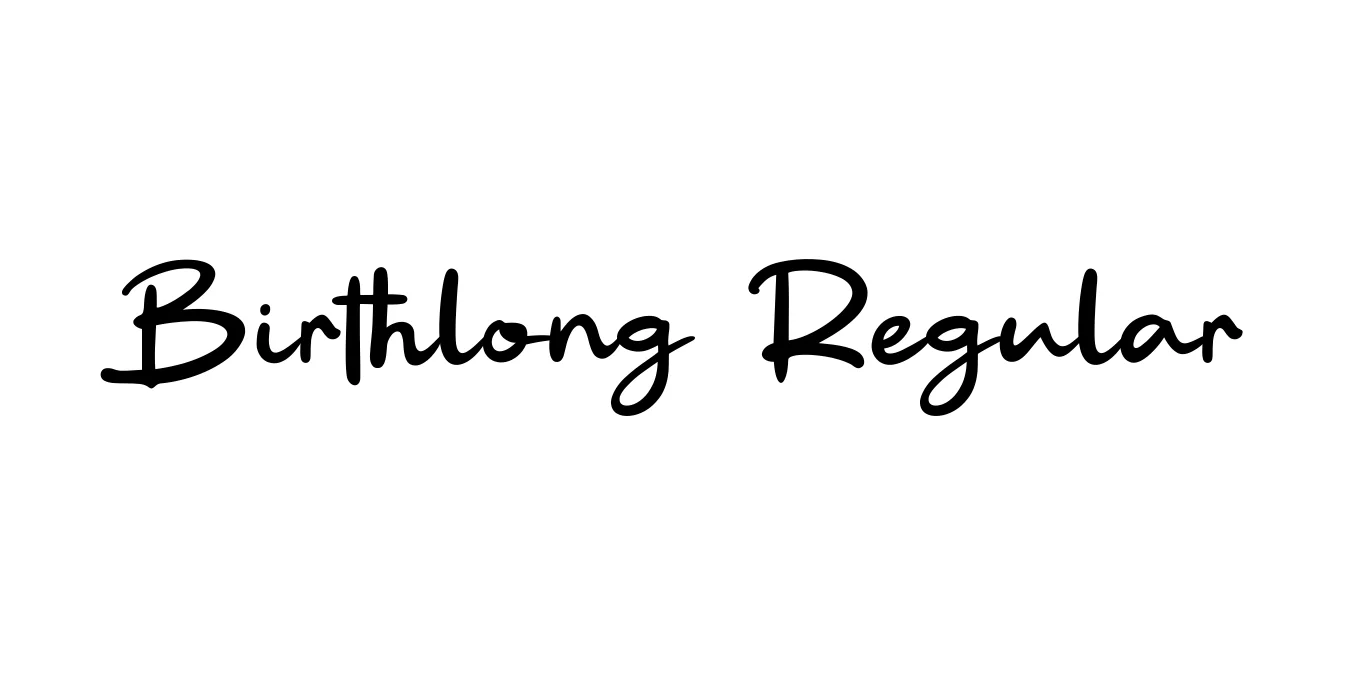
Birthlong Regular
Birthlong Regular is a sophisticated and elegant script font meticulously crafted by Letterena Studios. It features fluid, handwritten strokes that convey a sense of personal touch and high-end craftsmanship, making it a primary choice for modern branding projects and artistic identity designs. The font's natural flow mimics authentic calligraphy, providing a timeless aesthetic that bridges the gap between classic elegance and contemporary style.
This typeface is highly distinguished by its graceful ligatures and flowing swashes, which provide a seamless visual experience for high-stakes design work like wedding invitations and luxury logos. Whether utilized for digital media or high-quality print, Birthlong brings a luxurious flair to any creative layout, ensuring your message is delivered with both clarity and an artistic professional finish.
Birthlong Regular Best Uses
Perfect for creating romantic and sophisticated wedding stationery and RSVP cards.
Ideal for high-end boutique labels and luxury lifestyle brand identities.
Great for aesthetic inspirational quotes and stylish Instagram graphic overlays.
Excellent for professional photography watermarks and personal digital signatures.